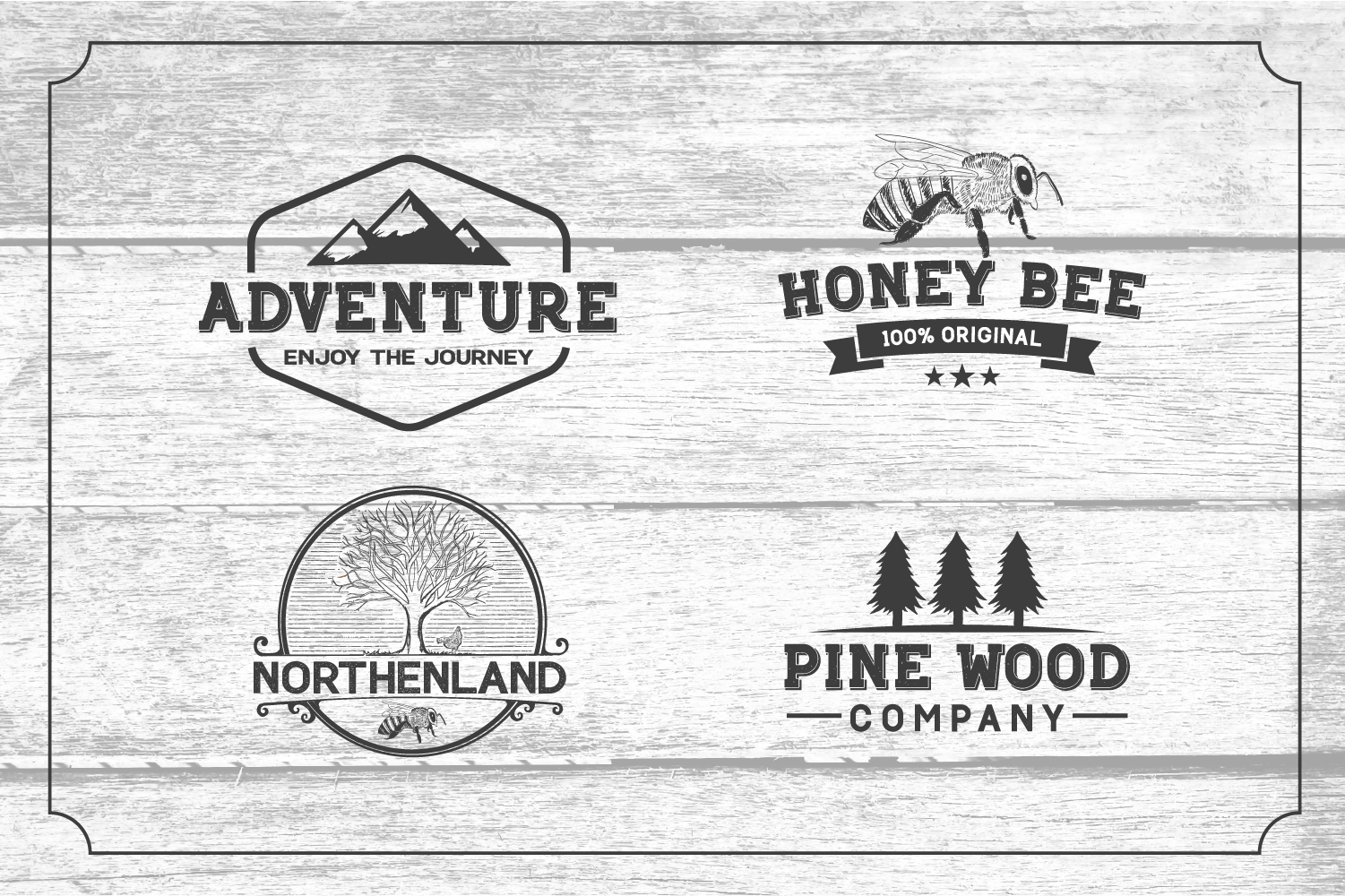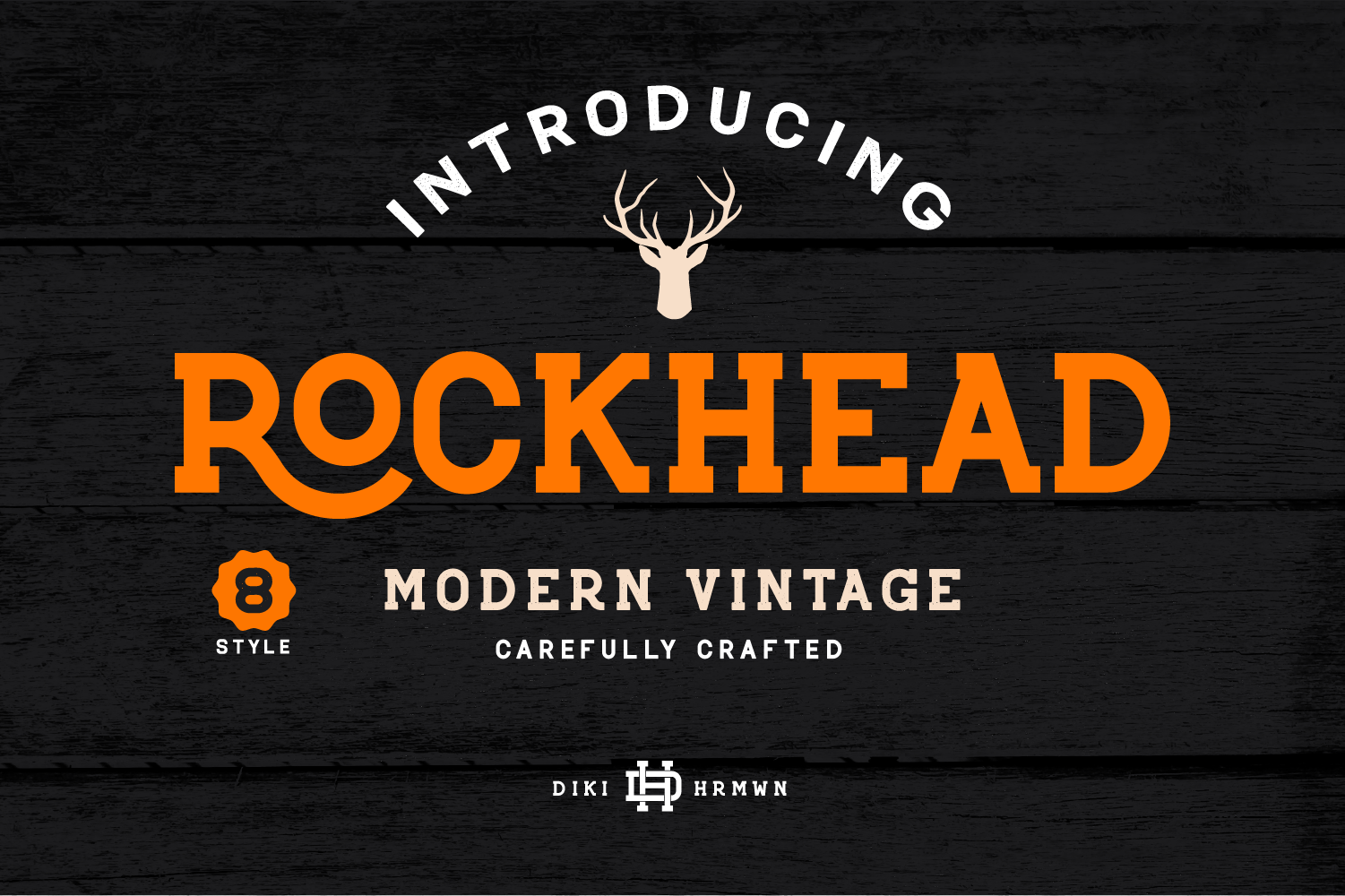
Rockhead - Free Modern Vintage Sans Serif Font
We're glad to feature Rockhead - Free Modern Vintage Sans Serif Font. Pixelify has featured this amazing and beautiful free typeface. This is absolutely beautiful font so you can easily make world-class designs.